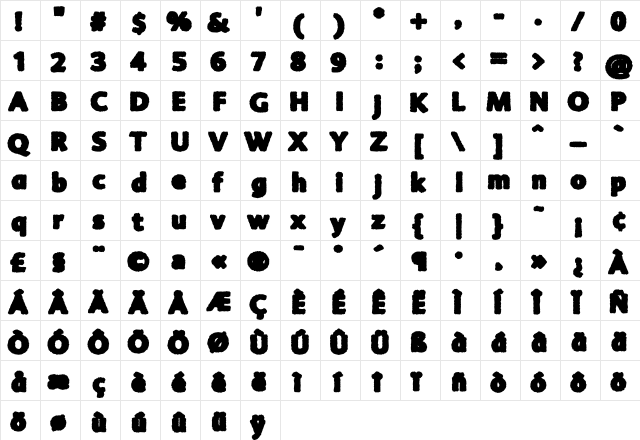
AdvertRough Five
Design Context for AdvertRough Typeface
AdvertRough embraces imperfection — its rough, textured character adds raw authenticity to designs that want to feel lived-in and unconventional.
A strong fit for alternative music projects, graffiti-adjacent design, and anything that deliberately resists polish.
Pro Tip: Use AdvertRough at larger sizes where the texture and irregularity of each letterform can be clearly seen — it loses its character at small sizes.